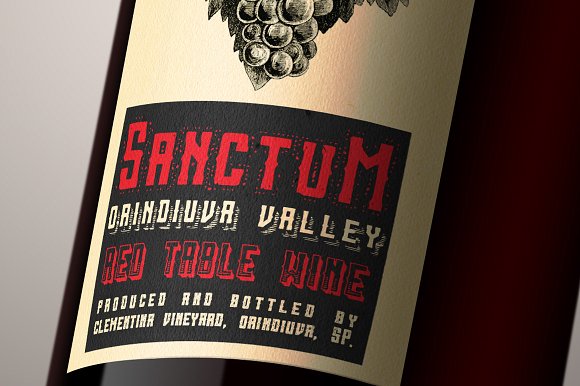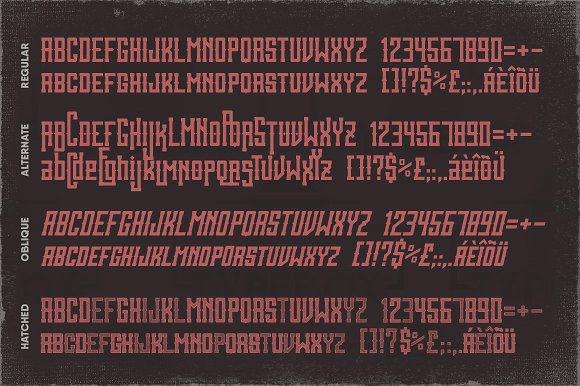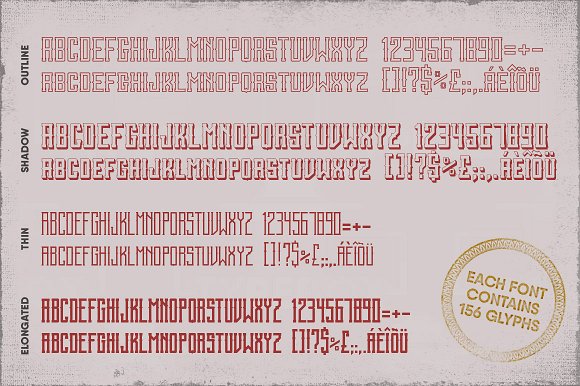
Introduction to Sanctum Inky Collection Font
As a designer, have you ever found yourself stuck in a creative rut, searching for the perfect font to bring your project to life? You’re browsing through countless options, scrolling through your favorite design resources, and finally, you stumble upon the perfect match. That moment of excitement and relief is exactly what designers live for, and it’s what makes the Sanctum Inky Collection Font a game-changer in the world of typography.
With its unique blend of geometric and neo-gothic styles, the Sanctum Inky Collection Font is a high-quality design resource that’s perfect for labels, packaging, and posters. Its transparent background and versatile nature make it an ideal choice for designers who want to add a touch of elegance and sophistication to their creative project.
Key Features of Sanctum Inky Collection Font
- High-quality, intricate designs with transparent background options for creative projects.
- Includes a variety of font styles and weights for added versatility in design.
- Designed to be highly legible at various resolutions, including 72 dpi and 300 dpi.
- Perfect for use in creative projects such as illustrations, graphics, and digital art.
- Unique, hand-drawn style that adds a touch of elegance and sophistication to any design.
Honest Review: Sanctum Inky Collection Font
I recently came across the Sanctum Inky Collection Font while searching for a unique design resource for my next creative project. As a designer, I’m always on the lookout for high-quality fonts that can add a personal touch to my work.
One of the standout features of this font is its transparent background, which makes it easy to layer and blend with other design elements. I’ve found it to be incredibly versatile and have used it in a variety of projects, from logos to typography-based designs.
- ✨ Unique and creative design style
- ✨ High-quality rendering and resolution
However, I do have to mention a few limitations:
- ⚠️ Limited character set, which may not be suitable for longer blocks of text
- ⚠️ May not be as legible at smaller font sizes
Overall, I’m really impressed with the Sanctum Inky Collection Font and would definitely recommend it to designers looking for a unique and high-quality design resource. With a little creativity and experimentation, I’m confident you’ll be able to achieve some amazing results with this font.
The Sanctum Inky Collection Font is ideal for use in a variety of creative projects, including graphic design, digital art, and print materials.